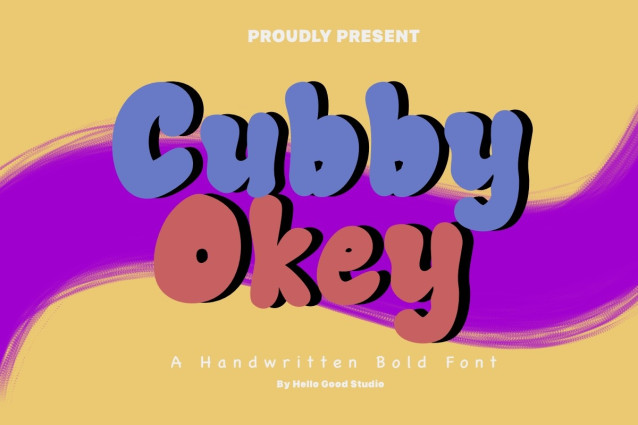
Cubby Okey Font
Cubby Okey Font is a chunky, comic, and cartoon display font. With its neat and joyful personality, this font will enhance any project you wish to create!